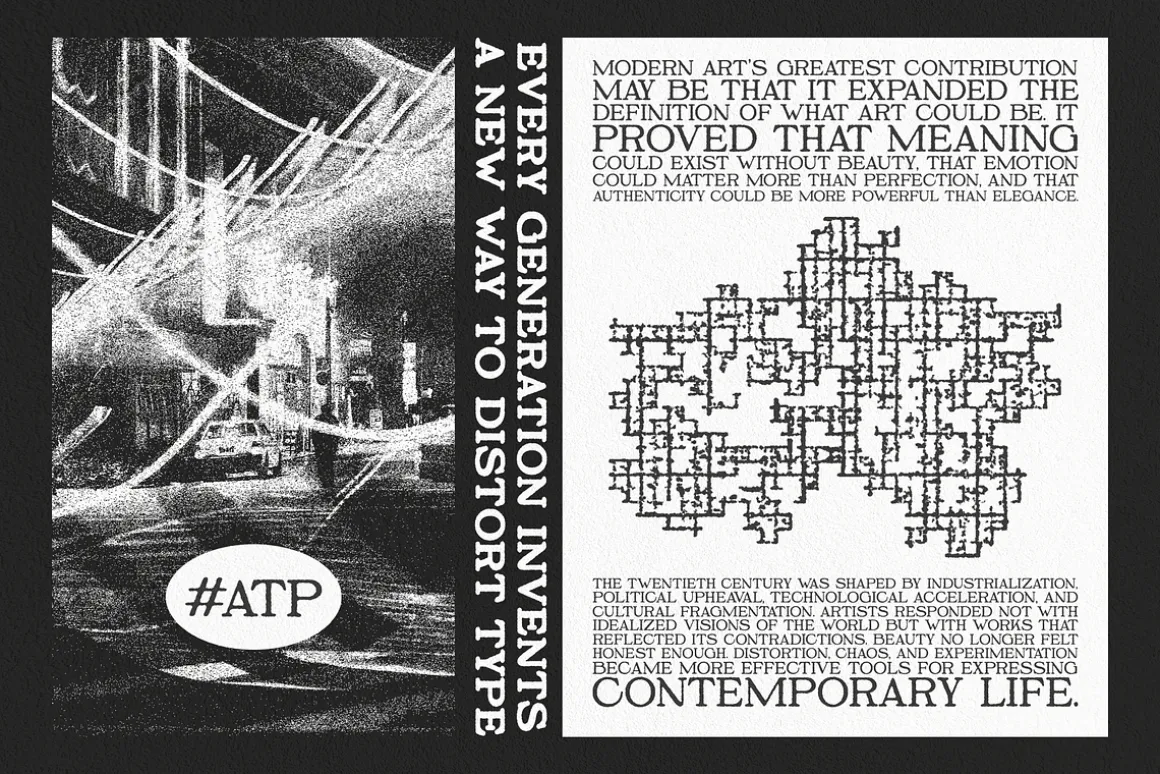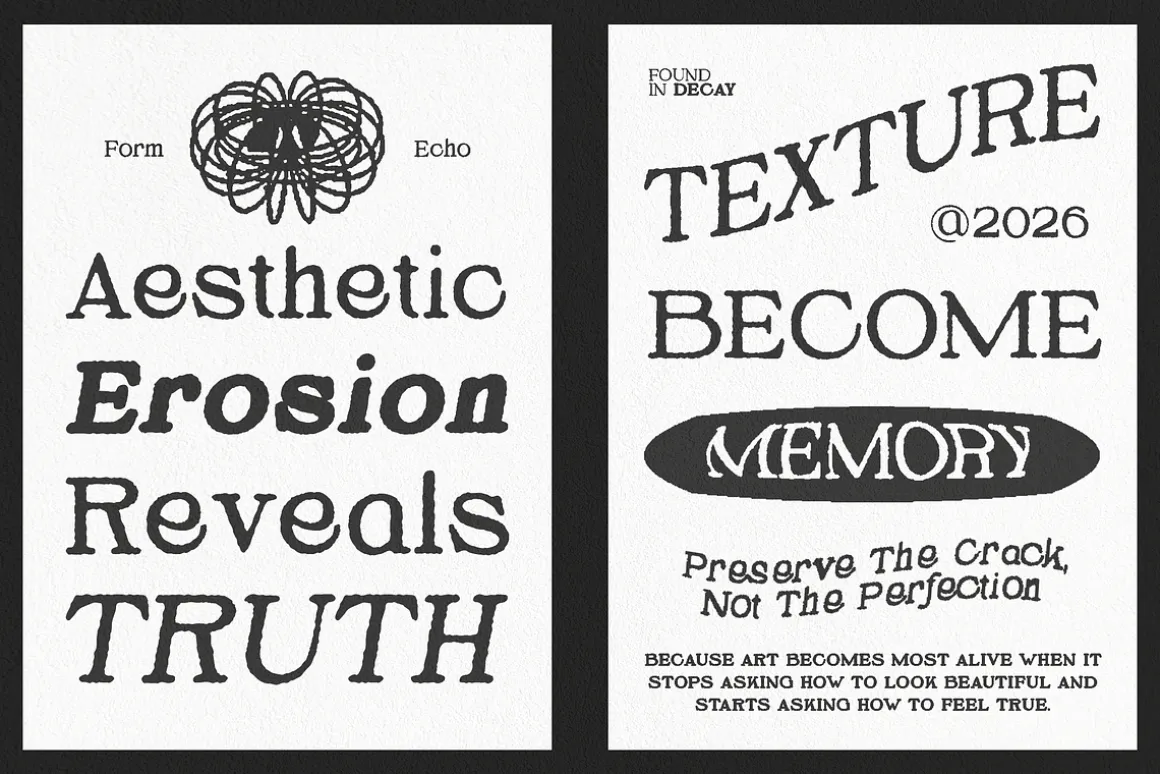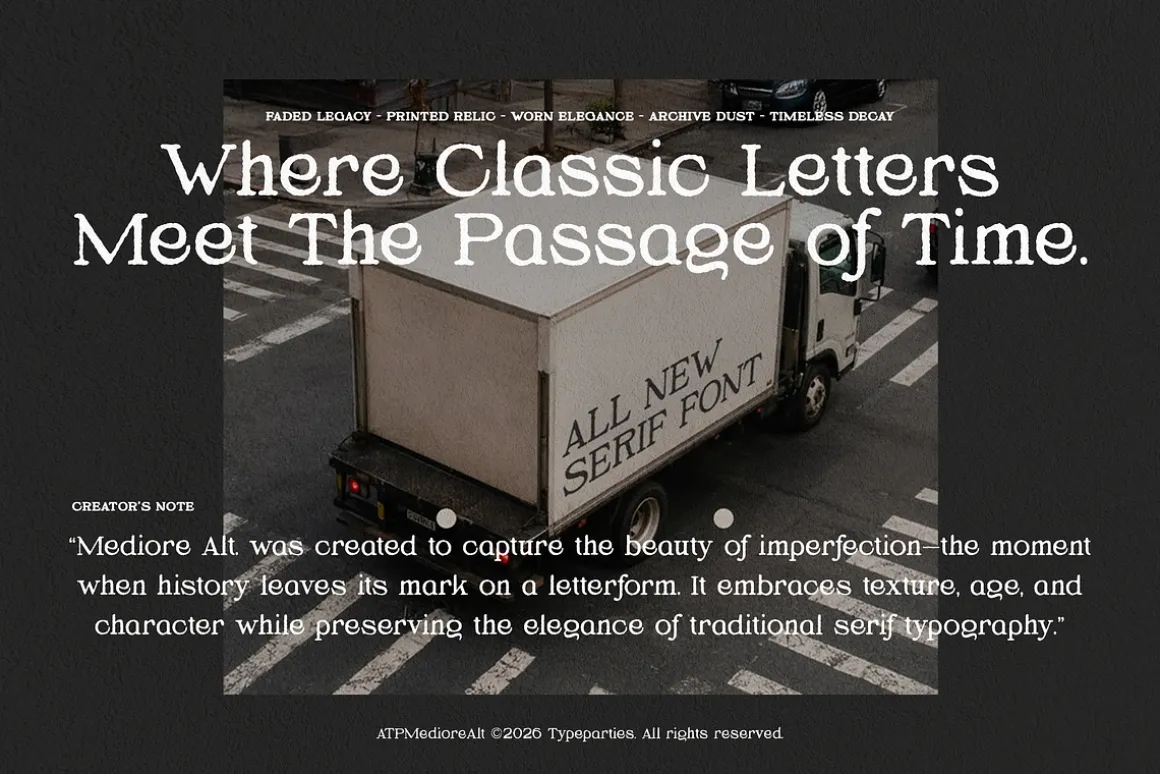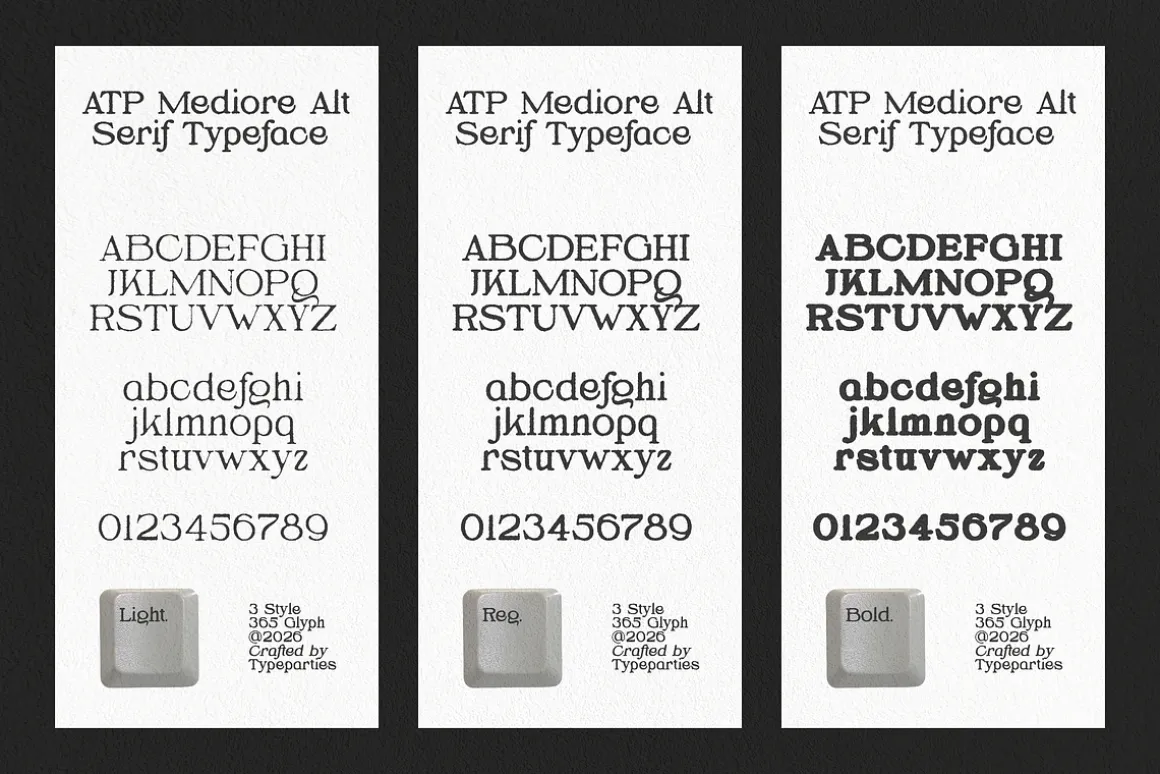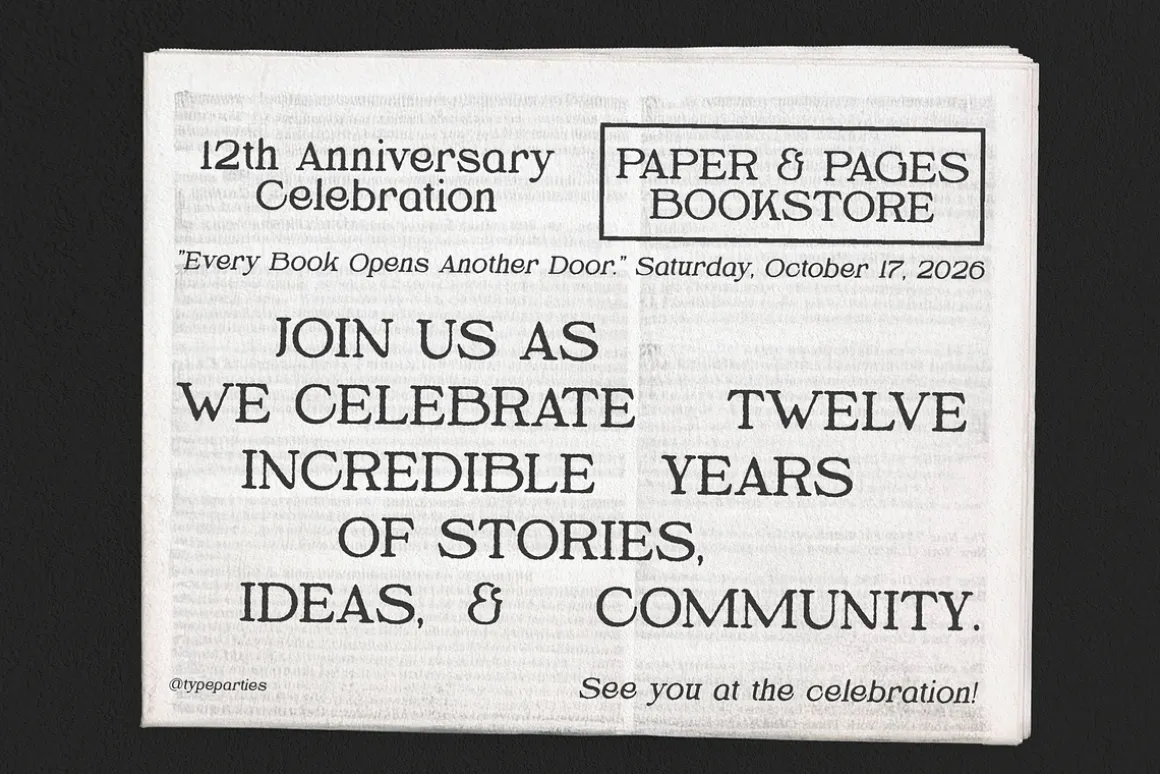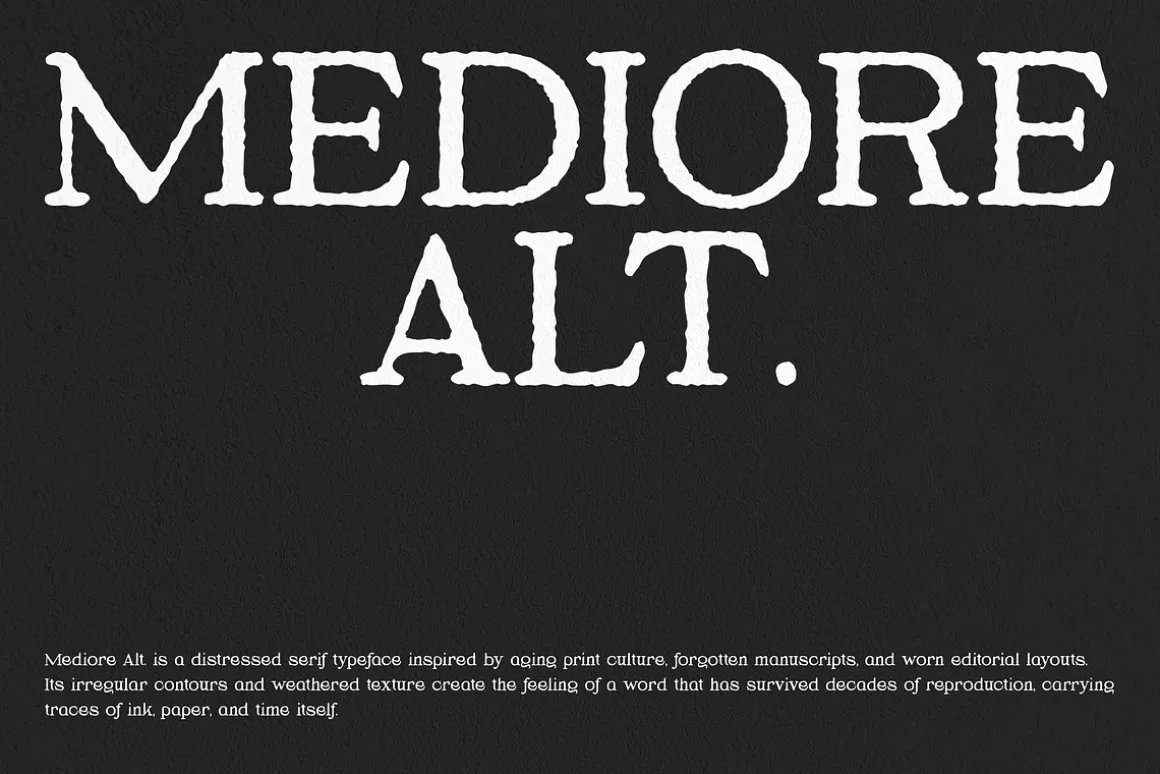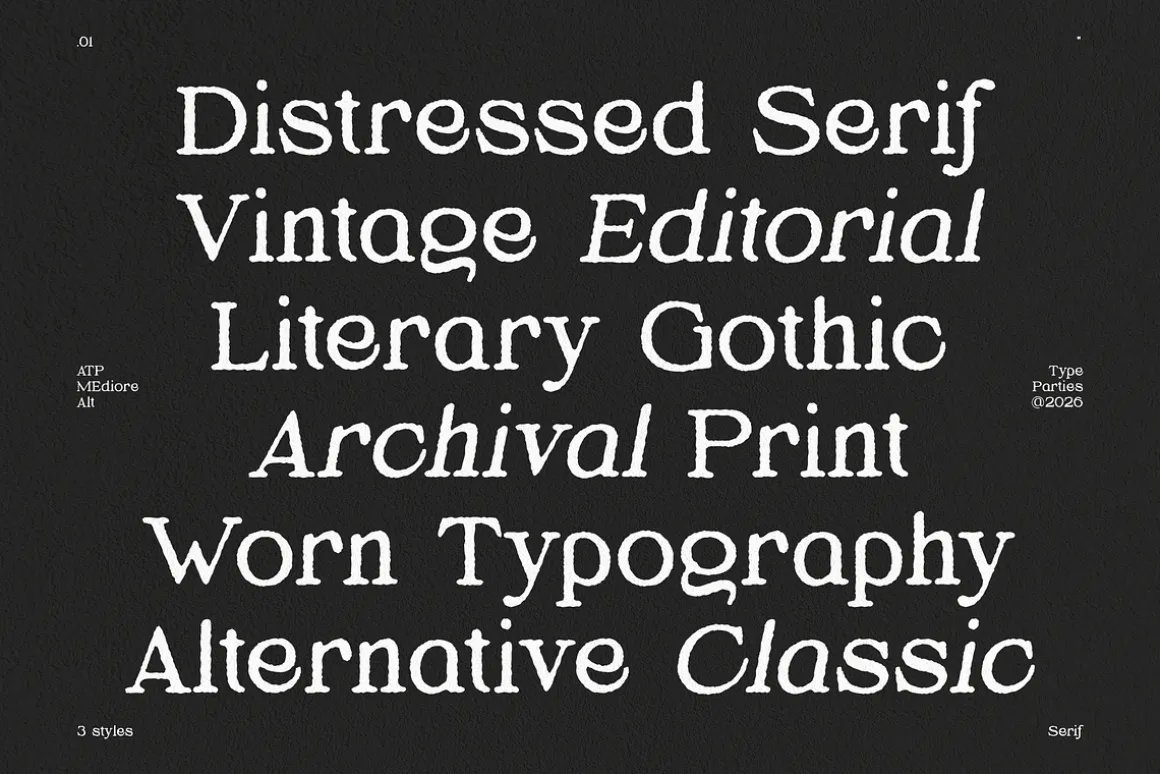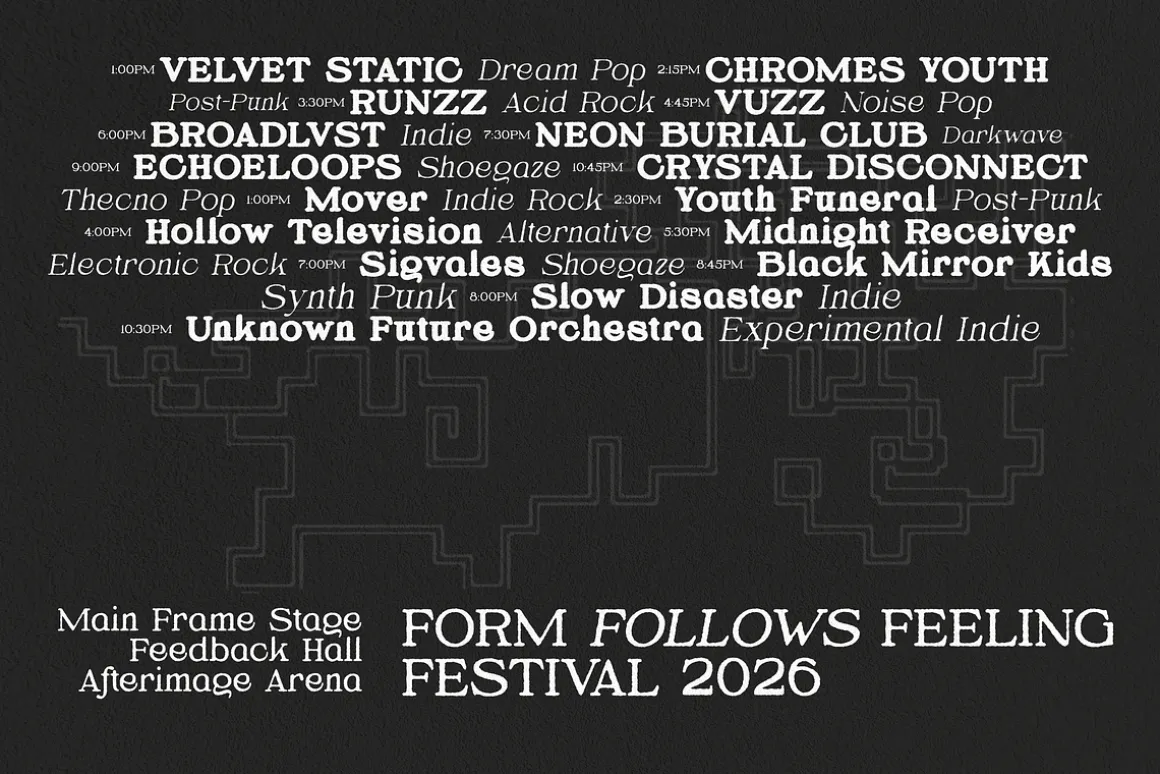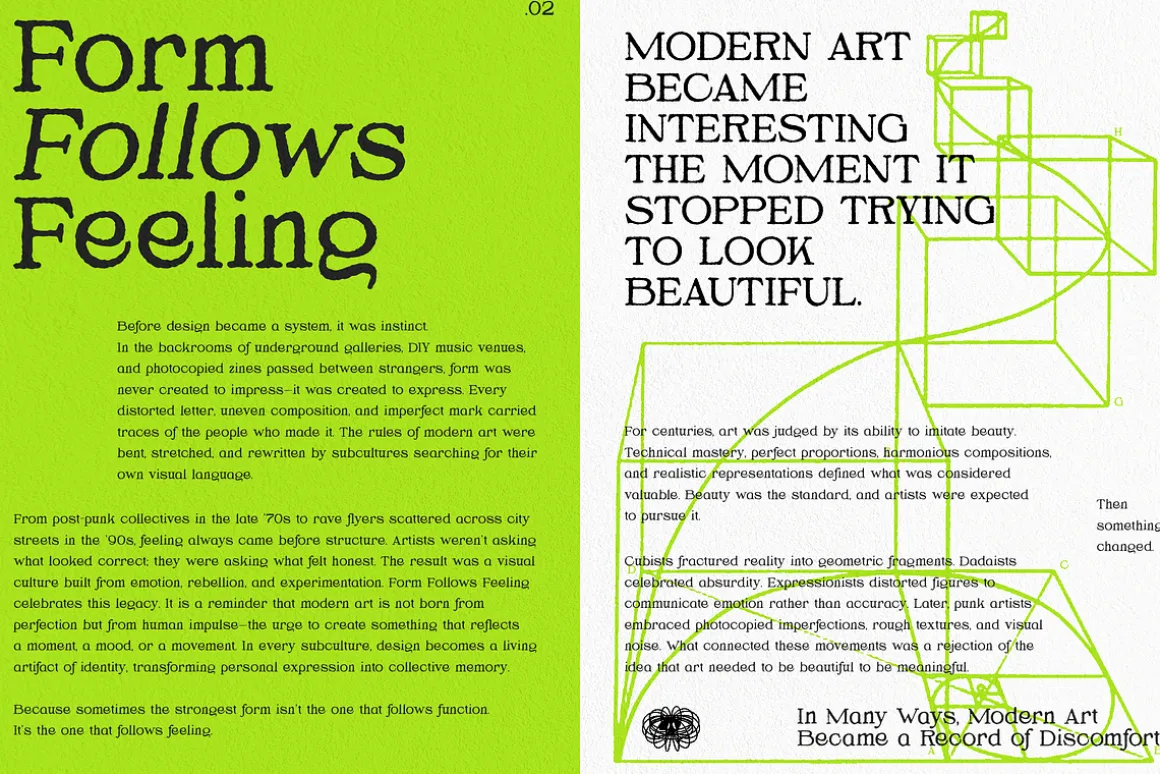
Mediore Alt. is a distressed serif typeface inspired by aging print culture, forgotten manuscripts, and worn editorial layouts. Its irregular contours and weathered texture create the feeling of a word that has survived decades of reproduction, carrying traces of ink, paper, and time itself.
The letterforms balance classical proportions with a raw handmade character, making the typeface feel both authoritative and imperfect. Every edge appears slightly eroded, adding warmth and authenticity while maintaining strong readability.
Designed for book covers, independent magazines, cinematic titles, archival-inspired branding, and alternative cultural projects, Mediore Alt. delivers a timeless presence with a subtle sense of decay.